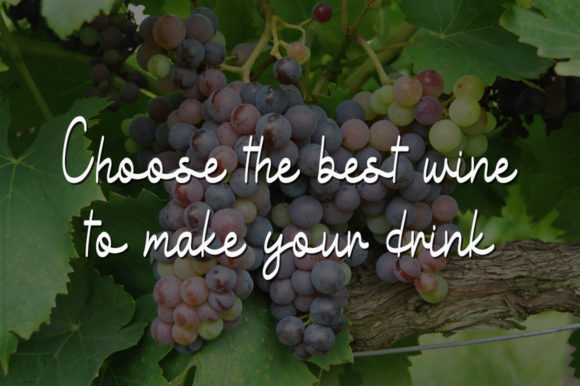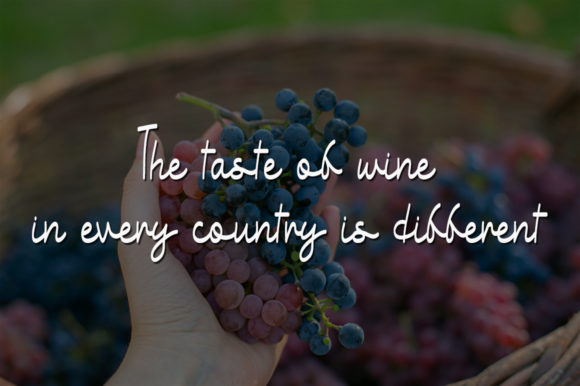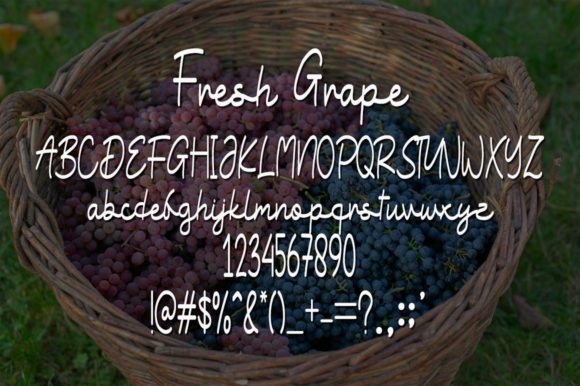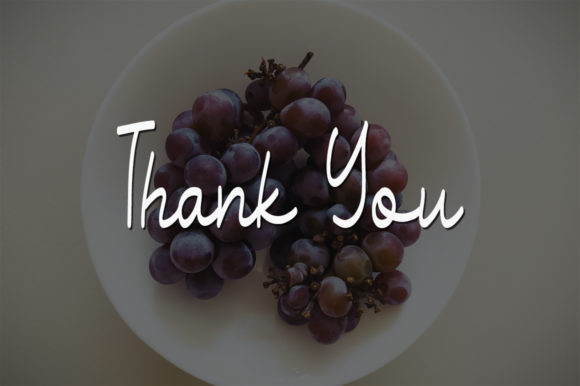
The Quest for the Perfect Font: Discovering Fresh Grape
I’ll never forget the time I was working on a project for a client who wanted a elegant and sophisticated look. I had spent hours browsing through font libraries, but nothing seemed quite right. That was until I stumbled upon Fresh Grape, a delicate and elegant handwritten font that stole my heart. In this article, I’ll share my experience with Fresh Grape, its features, and how to make the most of it in your designs.
An Honest Review of Fresh Grape
- ✨ Delicate and elegant handwritten style
- ✅ Well-rounded letters that exude sophistication
- 🌈 Incredibly versatile, perfect for various design projects
- 💡 Distinctive character that sets it apart from other fonts
While Fresh Grape is an amazing font, there are a few things to keep in mind:
- 🤔 Limited use of uppercase letters, which can make it less suitable for headings that require all caps
- ⚠️ May not be the best choice for body text due to its elegant, yet delicate nature
A Practical Guide to Using Fresh Grape
- Experiment with OpenType features, such as ligatures and stylistic alternates, to add personality to your text
- Explore the font’s glyphs and OpenType features to add unique touches to your design
The Story Behind Fresh Grape
Fresh Grape was designed with the intention of creating a font that exudes elegance and sophistication. Its creator wanted to craft a font that would be perfect for designers, crafters, and creative hobbyists looking for a unique and versatile font. With its well-rounded letters and delicate style, Fresh Grape has become a popular choice for a wide range of design projects.
Q: What type of projects is Fresh Grape best suited for?
A: Fresh Grape is perfect for projects that require an elegant and sophisticated look, such as wedding invitations, branding, and packaging design.
Q: Is Fresh Grape a difficult font to read?
A: Fresh Grape is a delicate font, but it’s still relatively easy to read. However, it may not be the best choice for body text due to its elegant, yet delicate nature.